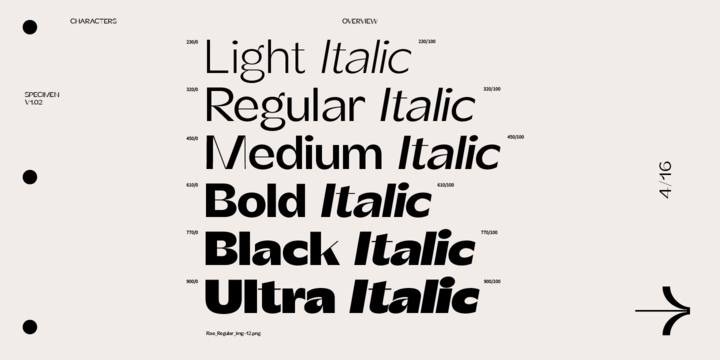
Rae Low Font
Rae Low Font is perfect for low-key brand identities, understated lifestyle campaigns, subtle wellness branding, relaxed hospitality materials, casual restaurant menus, gentle service communications, quiet luxury designs, and unpretentious business presentations.
What makes Rae Low Font exciting is its refreshingly understated character that celebrates the beauty of quiet confidence through gentle, unassuming letterforms that speak softly but carry significant visual weight. The font features calm proportions with subtle details that create an atmosphere of relaxed sophistication and authentic humility, embodying the kind of quiet strength that doesn't need to shout to be heard. Its low-key aesthetic and genuine appeal make it perfect for brands that want to communicate authenticity, approachable elegance, and the confident restraint that comes from being secure enough to let quality speak for itself rather than relying on flashy attention-seeking tactics.
Rae Low Font family includes various gentle weights such as Ultra Light, Light, Regular, and Medium variations, often featuring understated stylistic alternates and subtle decorative elements. The family may include quiet symbols, gentle ornaments, and soft ligatures that enhance the font's low-key aesthetic, providing designers with comprehensive options for creating calm typographic compositions that honor the power of understatement and quiet confidence.